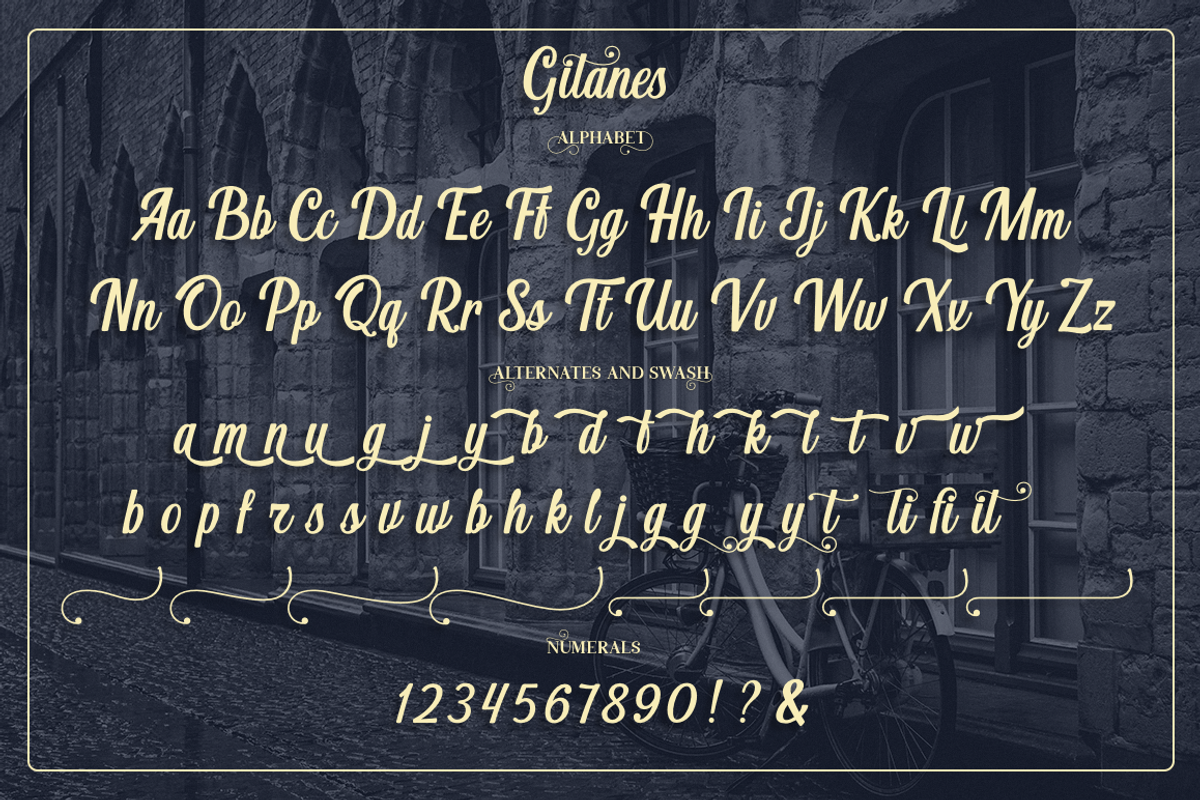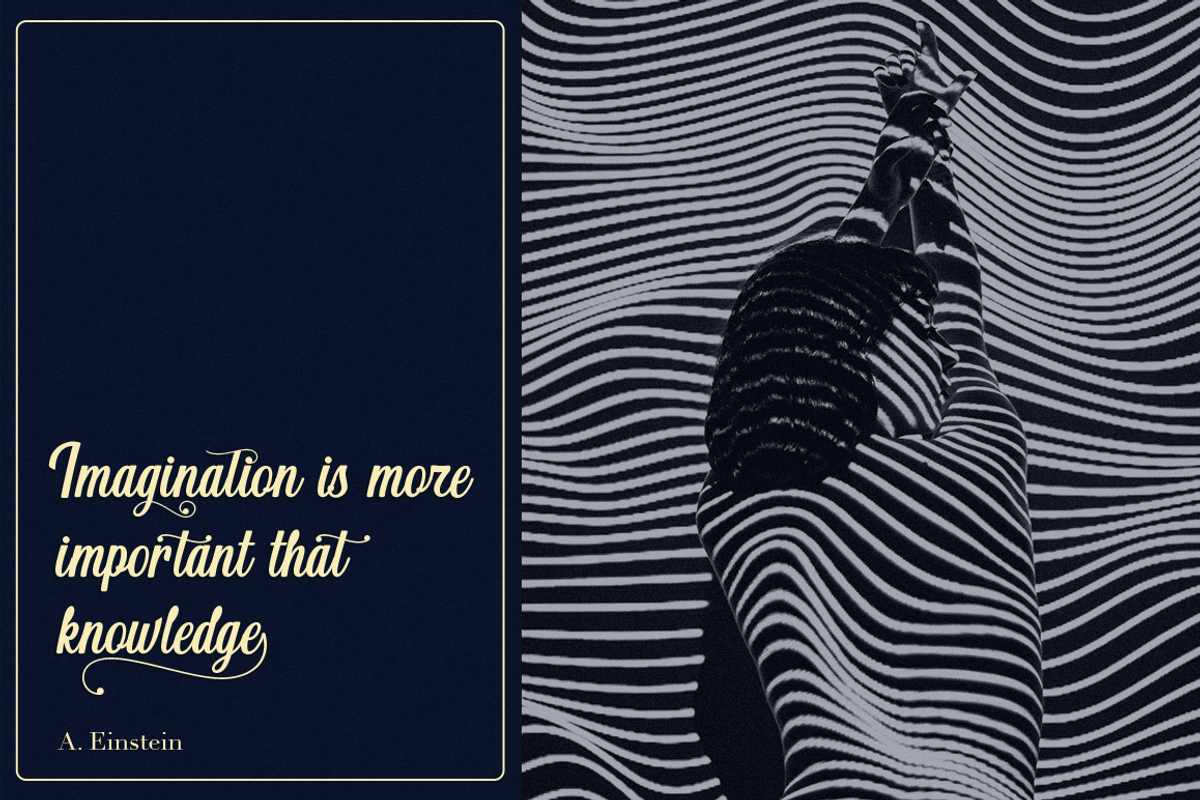
Gitanes
Gitanes font- a new fresh handmade calligraphy font.
This font is ideal for branding and decorate your any project, are perfect for wedding invitation or your blog. Also with their help, you can create a logo or beautiful frame for your home. Or just use for your small business, book covers, stationery, marketing, magazines and more. Especially for you, I have prepared a lot of alternatives that would be your project was more unique.